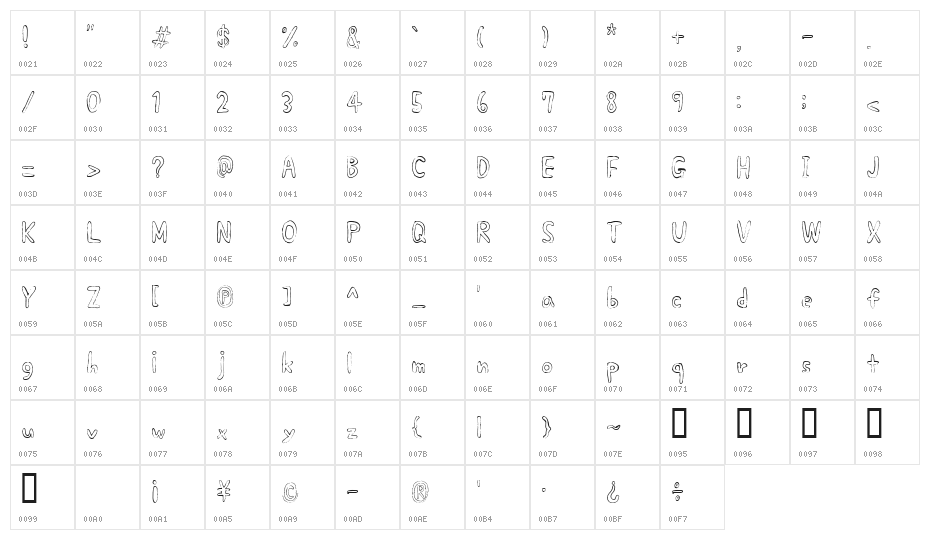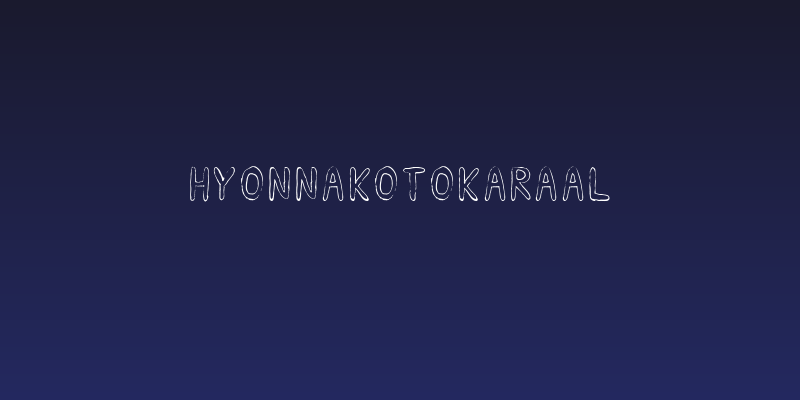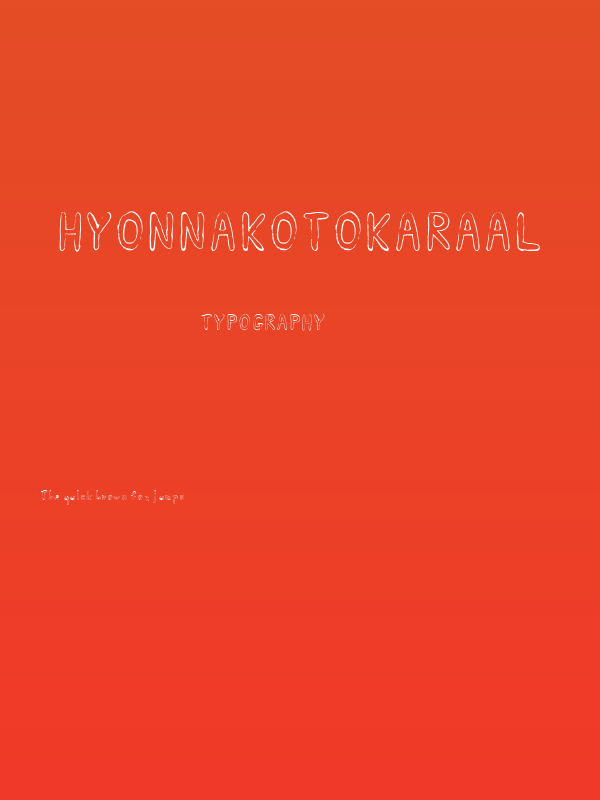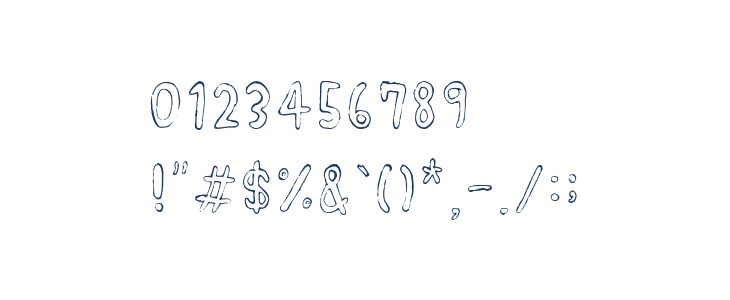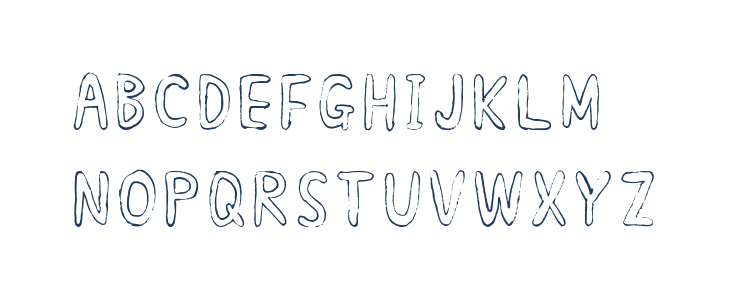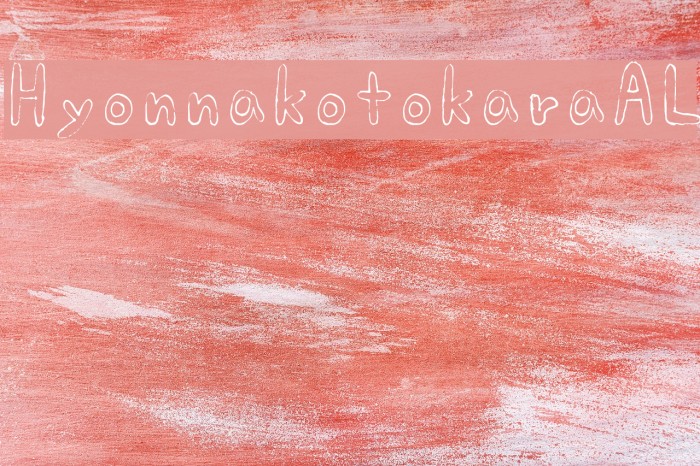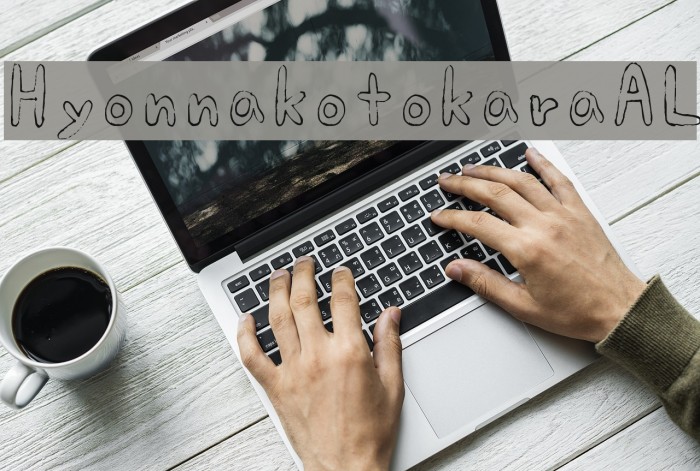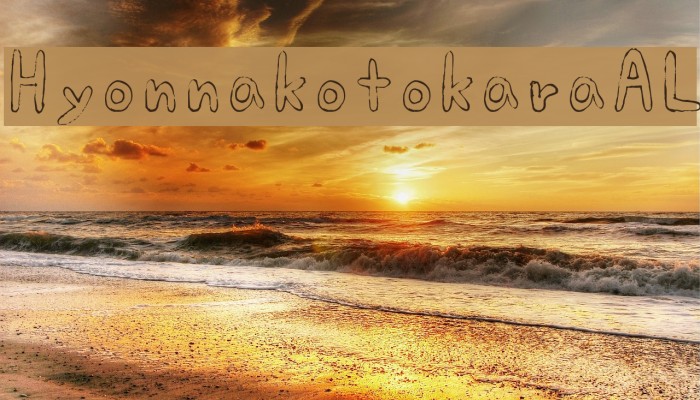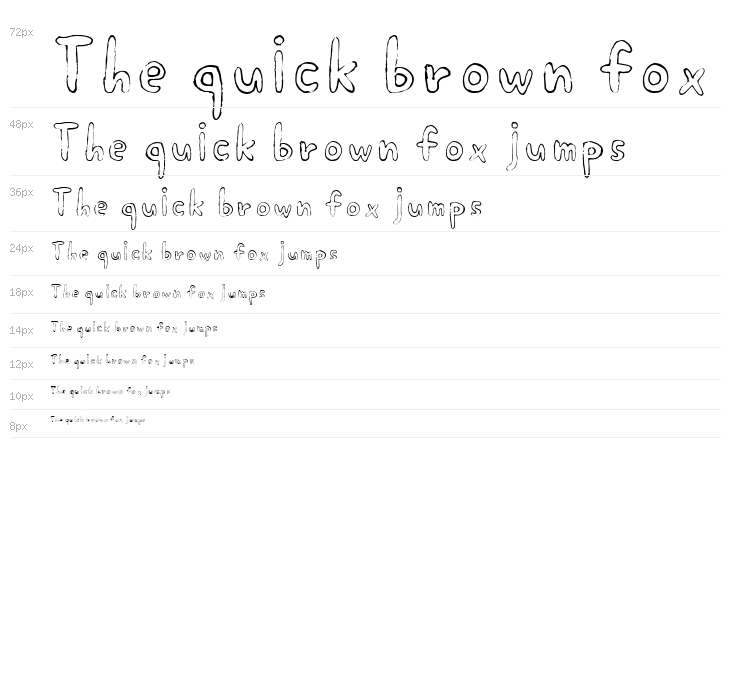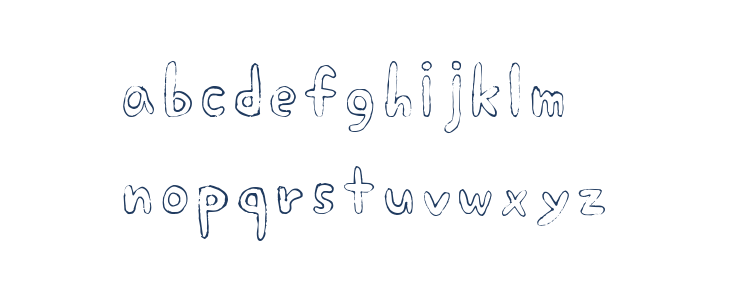
HyonnakotokaraAL Font
HyonnakotokaraAL Description
This font features a playful and informal style with a hand-drawn appearance. The letters have a slightly uneven and organic quality, giving them a whimsical and approachable feel. The strokes are moderately thick, with a consistent width that maintains readability while adding a touch of personality. The characters are well-spaced, ensuring clarity and legibility. The font includes a full set of uppercase and lowercase letters, numerals, and a variety of punctuation marks and special characters. Its unique style makes it suitable for creative and casual projects.
| Use Case | Headlines, Logos, Creative projects |
| Proposed Projects | Ideal for children's books, greeting cards, playful branding, and creative posters. |